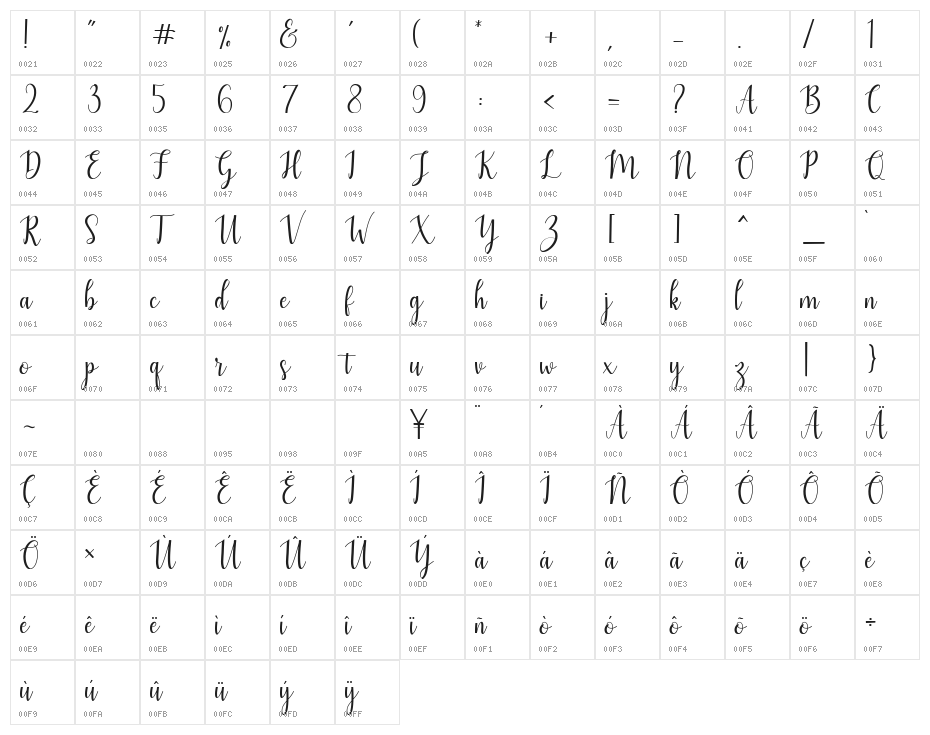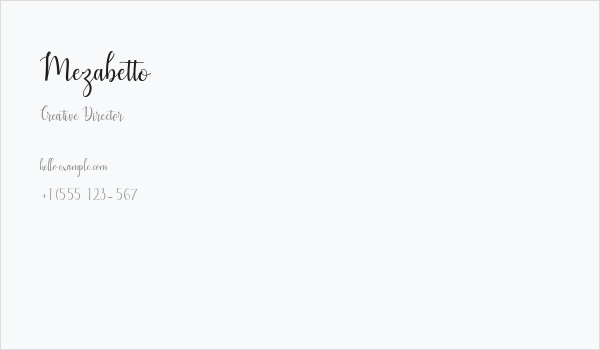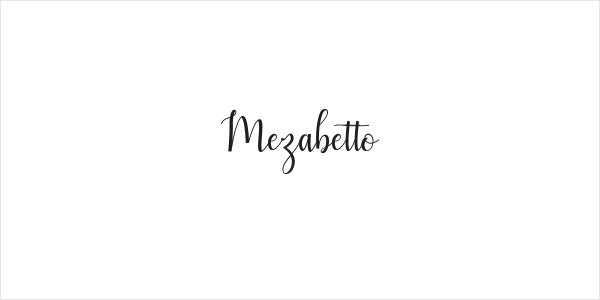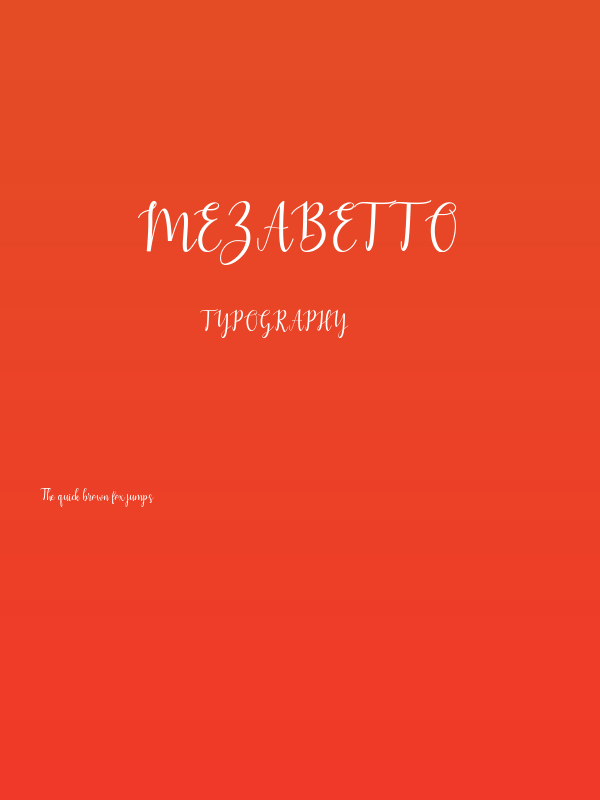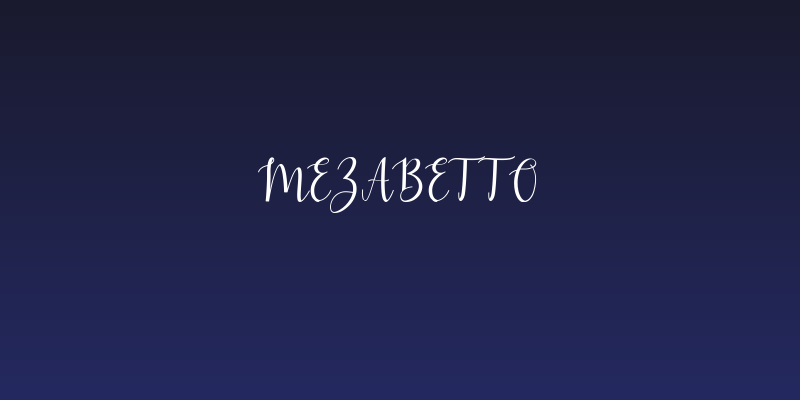
Mezabetto Font
Mezabetto Description
This elegant script font features a flowing, cursive style with graceful, sweeping lines and a refined aesthetic. The uppercase letters are characterized by their tall, slender forms and delicate loops, while the lowercase letters maintain a consistent fluidity and rhythm. The numerals are designed with a similar elegance, offering a cohesive look throughout. Special characters are thoughtfully integrated, enhancing the font's versatility. The overall appearance is sophisticated and stylish, making it suitable for a variety of design applications where a touch of elegance is desired.
| Use Case | Headlines, Invitations, Branding |
| Proposed Projects | Ideal for wedding invitations, elegant branding, greeting cards, and upscale packaging. |